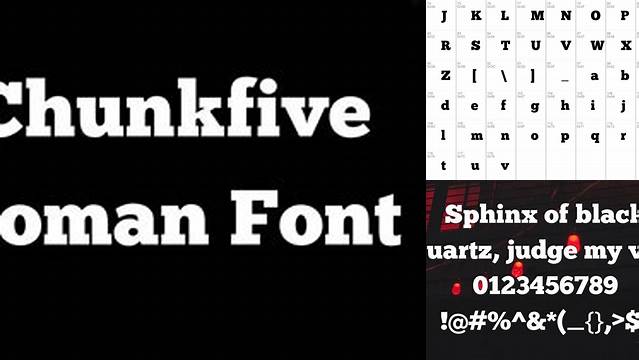
ChunkFive Roman Font: Free Download & Design Guide
Hey guys, are you looking for a classic and bold font that can instantly grab attention? Then, you've got to check out the ChunkFive Roman Font Family! It's a fantastic choice for all sorts of design projects, from eye-catching headlines to vintage-inspired logos. In this article, we'll dive into everything you need to know about ChunkFive Roman, including how to get it for free and how to use it effectively. Let's get started!
What is ChunkFive Roman Font?
ChunkFive Roman is a slab-serif font that's been around for a while, but it's still super popular. It's got a strong, confident look, thanks to its thick, rectangular serifs. This font was designed by Meredith Mandel, and it’s based on the old western wood type. If you're aiming for a vintage or retro vibe, ChunkFive Roman is your go-to font. The font family typically includes different weights and styles, allowing you to add a touch of flair to your design project. Its versatility makes it an excellent choice for all sorts of applications, from branding to website design. ChunkFive Roman is known for its readability, so it is suitable for both display and body text in different sizes. The font's bold appearance makes it ideal for headings and titles that need to stand out. It's also a great choice for posters, flyers, and any design where you want to make a strong statement. This font is often used to create a sense of authority and impact. When designing, think about the overall feel and the specific message you want to convey. ChunkFive Roman helps to create a design that's both visually appealing and memorable. Its solid structure makes it an excellent choice for headlines. It works well in various design applications, including branding, website design, and print materials. Consider how the font aligns with your overall design goals and whether it enhances the message you want to convey. With ChunkFive Roman, your text will instantly catch the eye and command attention, making your design memorable. The character of ChunkFive Roman gives the design a striking appearance, making it a versatile option for a range of creative projects. The font’s retro style will make your design pop. The ChunkFive Roman font is a true design gem, especially for vintage and retro projects. It’s easy to read and makes a big impact, making it a perfect choice for anyone who wants to make a statement with their design. It's not just a font; it's a way to communicate a feeling or tell a story.
How to Use ChunkFive Roman Font Effectively
Alright, now that you've got the font, let's talk about how to use it. ChunkFive Roman is best suited for certain design elements. Its bold and chunky style makes it perfect for headings, titles, and display text. Here are some pro tips to maximize its effectiveness:
- Headlines and Titles: ChunkFive Roman is born to stand out, so use it for your main headlines. Make sure your audience immediately knows what your design is about. Its strong presence makes a bold statement that grabs the reader's attention instantly. This helps to ensure that your message is clear and impactful. Choose ChunkFive Roman to highlight your main message and make it the focal point of your design. Its unique characteristics make your headings memorable and visually appealing.
- Logos and Branding: Create a strong brand identity with ChunkFive Roman by using it in your logo design. It can help to give your brand a classic, memorable look. Consider the overall style of your brand. ChunkFive Roman can convey strength, stability, and a touch of vintage appeal. Use it to make your brand recognizable. It is a great choice for brands that want to establish a solid and trustworthy image.
- Posters and Flyers: When you want to make a statement, use ChunkFive Roman for posters and flyers. The font will draw attention. Choose to use ChunkFive Roman to create designs that grab the attention of passersby. Use it to create compelling visuals that inform and engage. It will make your promotional material stand out and convey your message.
- Website Design: For website headings and calls-to-action buttons, the font is awesome. Make your website user-friendly and visually appealing. Ensure the text is clear and the design is professional. This will encourage visitors to stay longer and explore your content. By using ChunkFive Roman, you will have an easy way to create a strong visual identity for your website. The font will add value to the overall user experience, and make your website memorable.
- Pairing with Other Fonts: While ChunkFive Roman is a star on its own, sometimes it's good to pair it with other fonts to balance the design. Use a simple, clean sans-serif font for body text to ensure readability. The combination of ChunkFive Roman for headings and a clean sans-serif font for body text will give a balanced and professional look. Make sure the font pairings complement each other. The result is a cohesive and easy-to-read design.
ChunkFive Roman Font: Final Thoughts